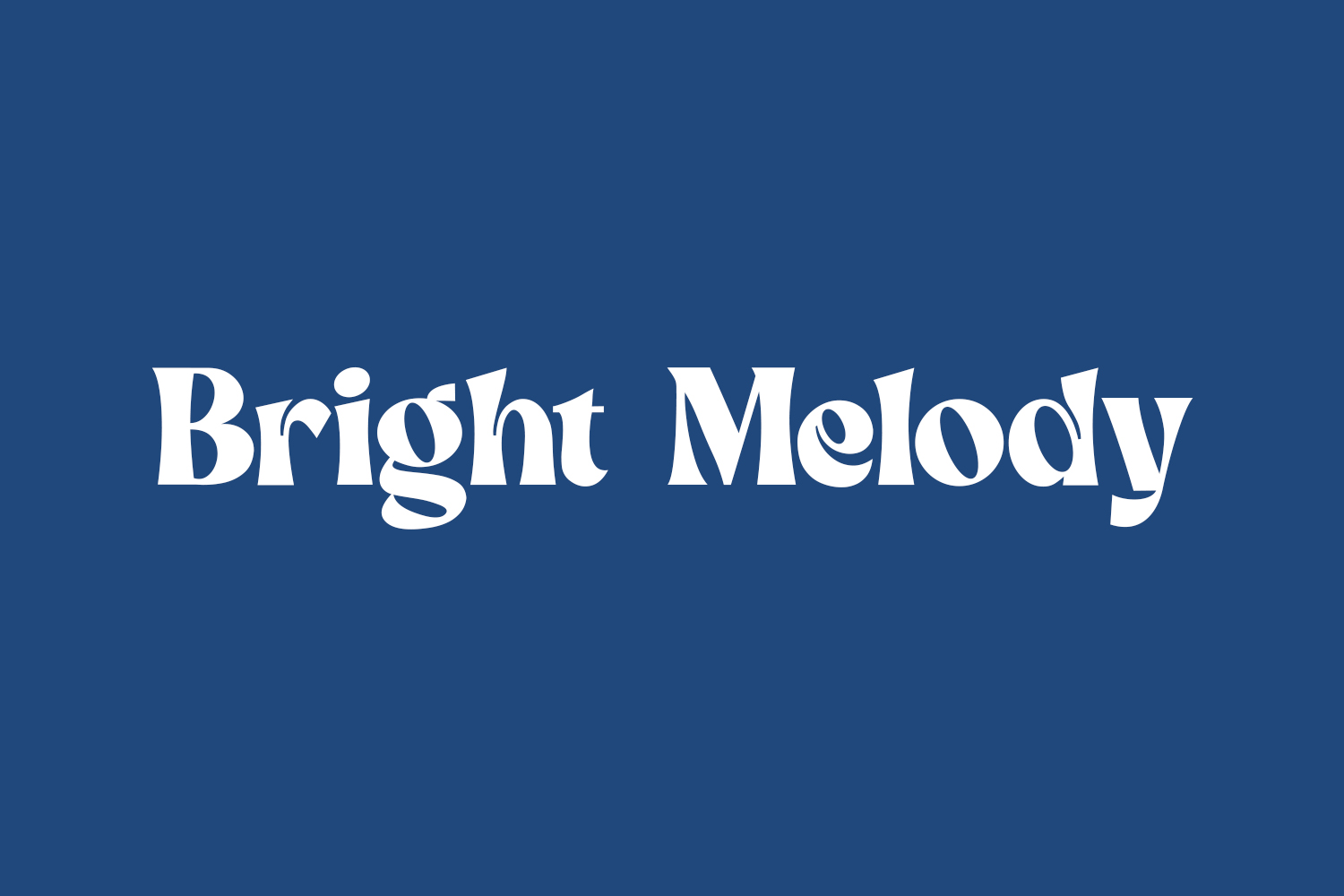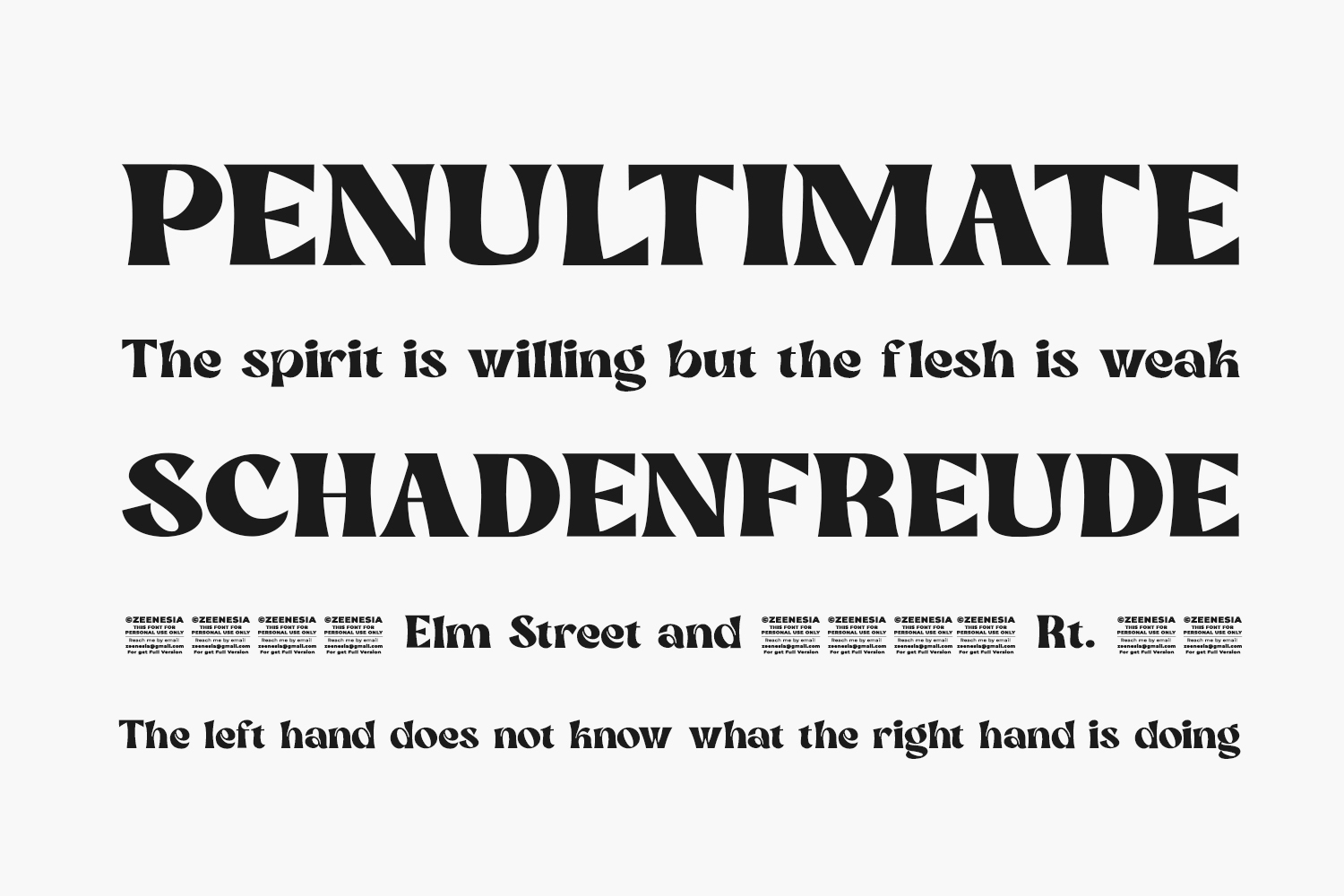
Introducing Bright Melody Free Font, a captivating vintage-style display font that exudes boldness with a touch of softness. This versatile typeface shines brilliantly in large formats, making it an ideal choice for a wide range of applications.
Unleash its charm in editorial projects, logo design, web fonts, clothing branding, product packaging, captivating magazine headers, or as an effortlessly stylish text overlay on any background image. Bright Melody is the perfect companion for elevating your designs and adding a touch of timeless allure. Bright Melody Free Font is a demo and free for personal use only. Please purchase the full version for commercial use.